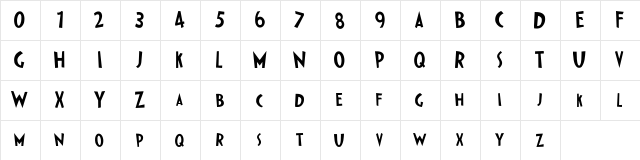
Ipkiss ZF Regular
| Designer | Jason |
Design Context for Ipkiss ZF Typeface
Ipkiss ZF is a composed and adaptable typeface that performs quietly and consistently across a wide range of design contexts.